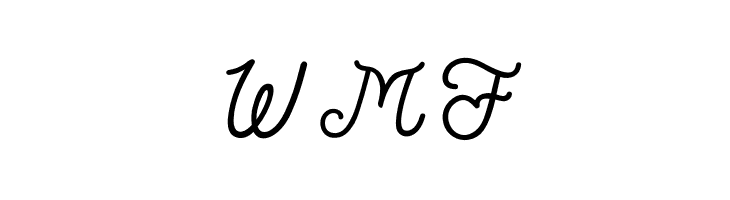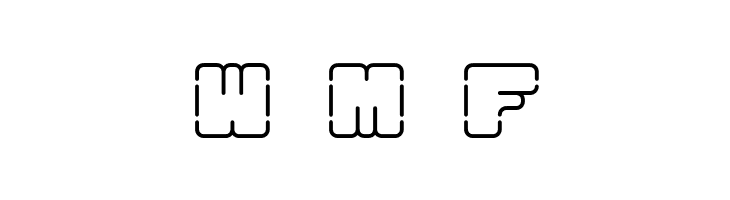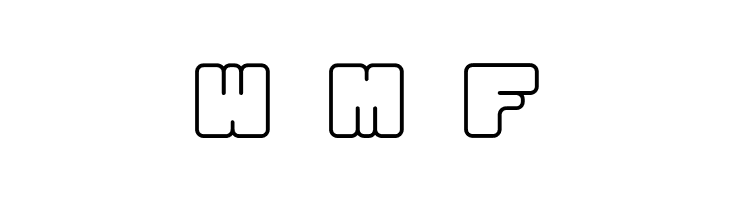
( Guido Holz - www.sloper-design.de )
A bold, geometric font with rounded edges and a block-like appearance.
( Guido Holz - www.sloper-design.de )
A bold, geometric font with rounded edges and a distinct outline.
A playful and elegant script font with smooth, flowing curves and a handwritten appearance.
( Fonts by Rodrigo Araya Salas )
A bold, playful font with rounded edges and a bubbly appearance.
( Annette Brown )
A playful, hand-drawn font with tall, narrow letters and a whimsical style.
( Fonts by Annette Brown )
A playful, hand-drawn font with elongated, irregular letterforms.
A playful, rounded typeface with a friendly and approachable style.
( Fonts by Misti's Fonts )
A playful, rounded typeface with a whimsical and friendly style.
A bold, vintage-inspired script font with elegant curves and a retro charm.
A modern and elegant font with clean lines and balanced proportions.
A bold, rounded font with smooth curves and a friendly appearance.
A modern, light sans-serif font with clean lines and balanced proportions.
A modern, rounded font with a friendly and approachable design.
A modern, clean font with rounded edges and consistent stroke width.
A modern, semi-bold font with rounded characters and balanced spacing.